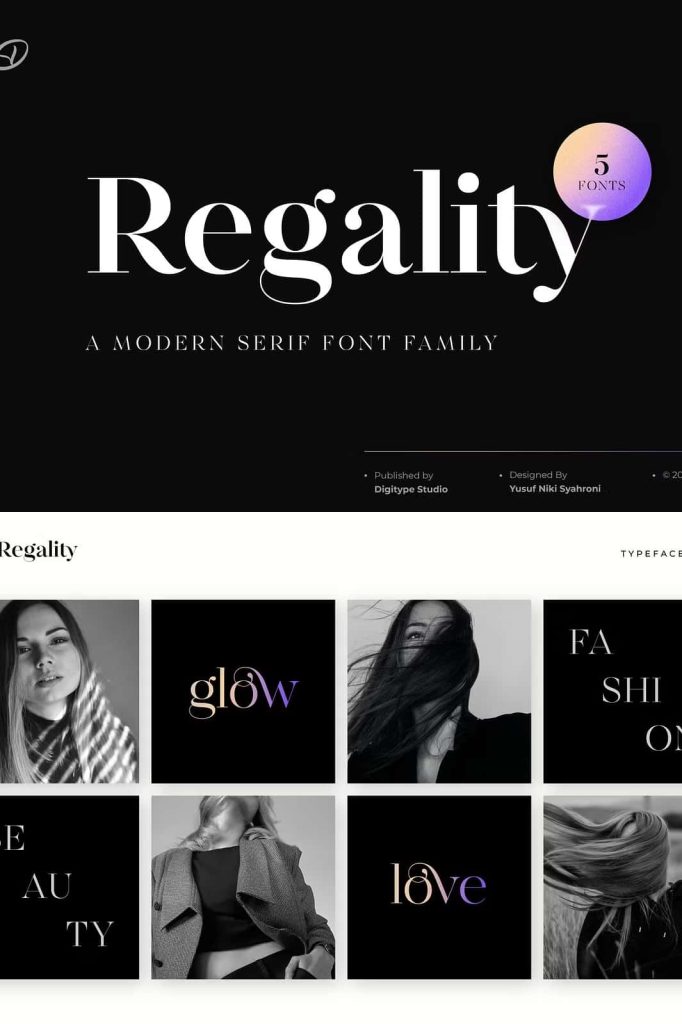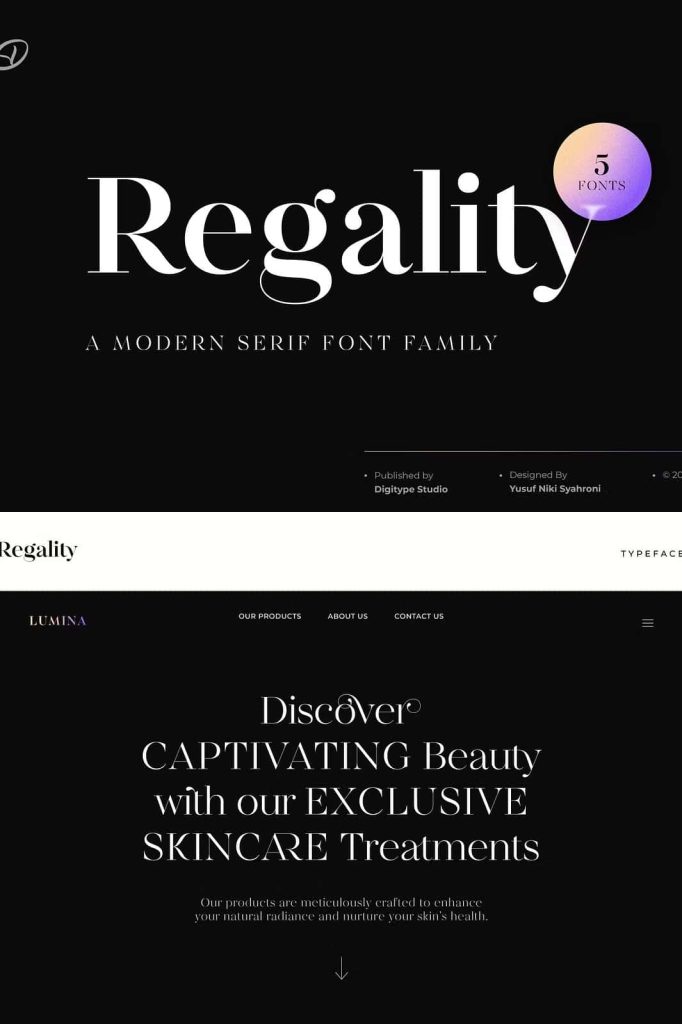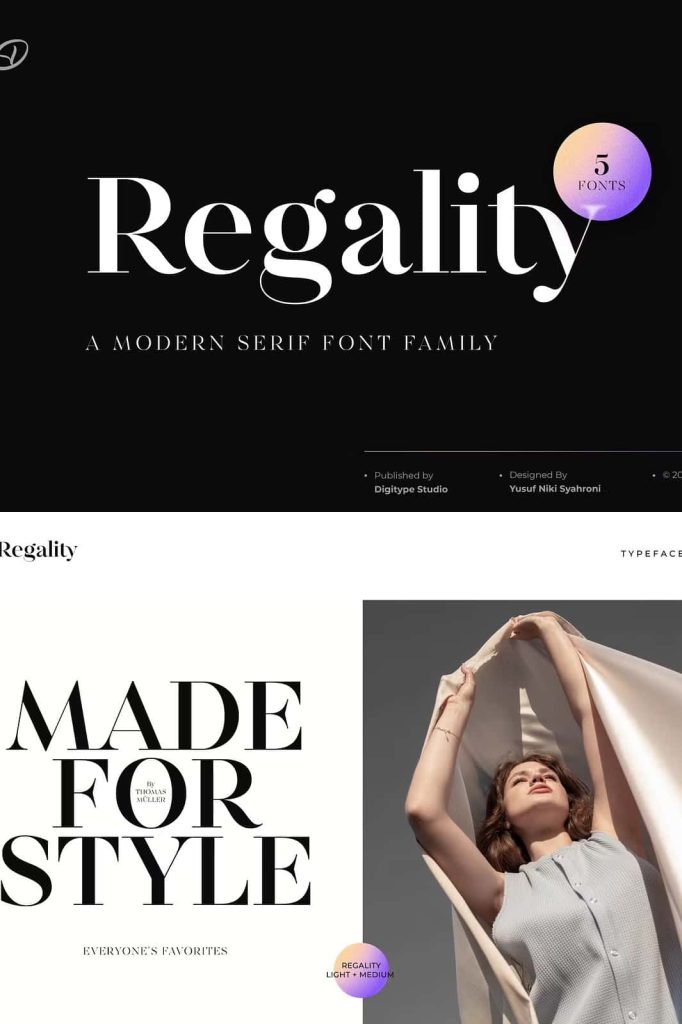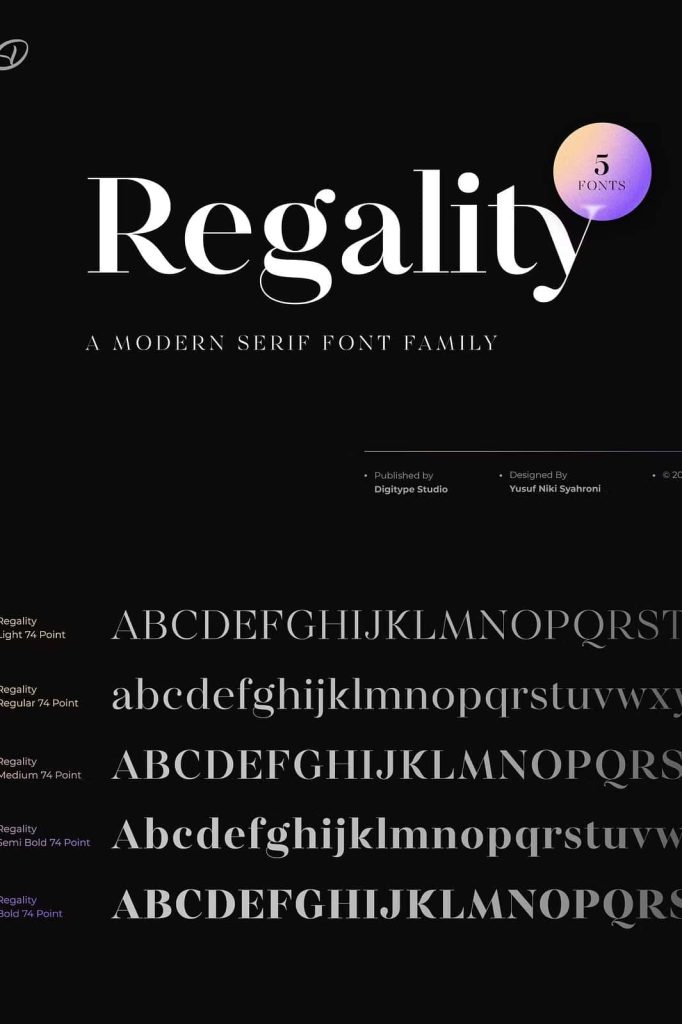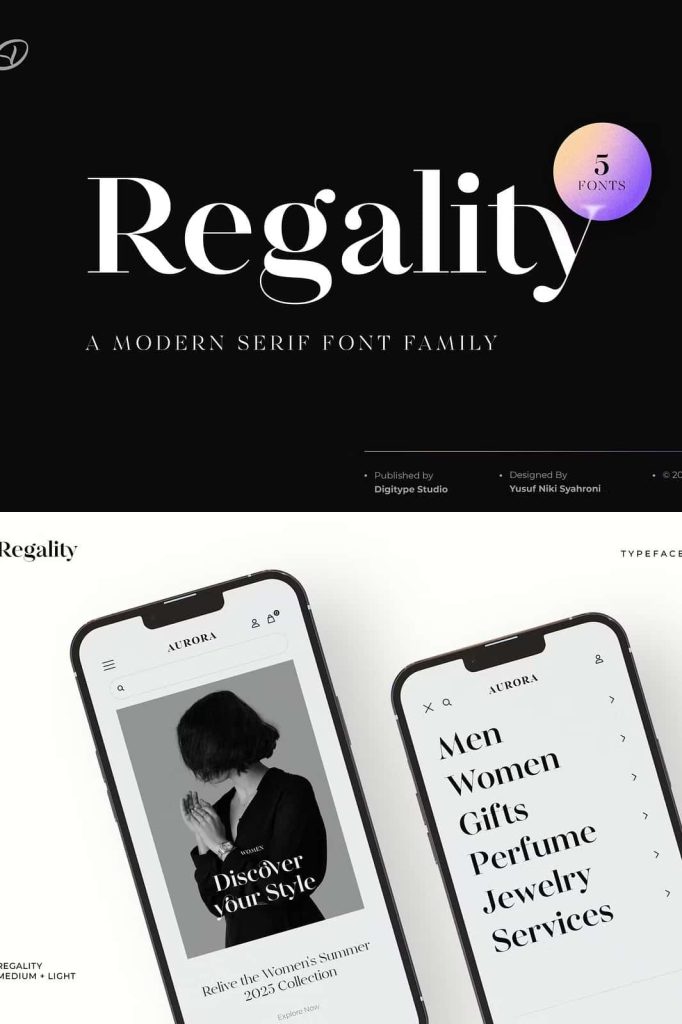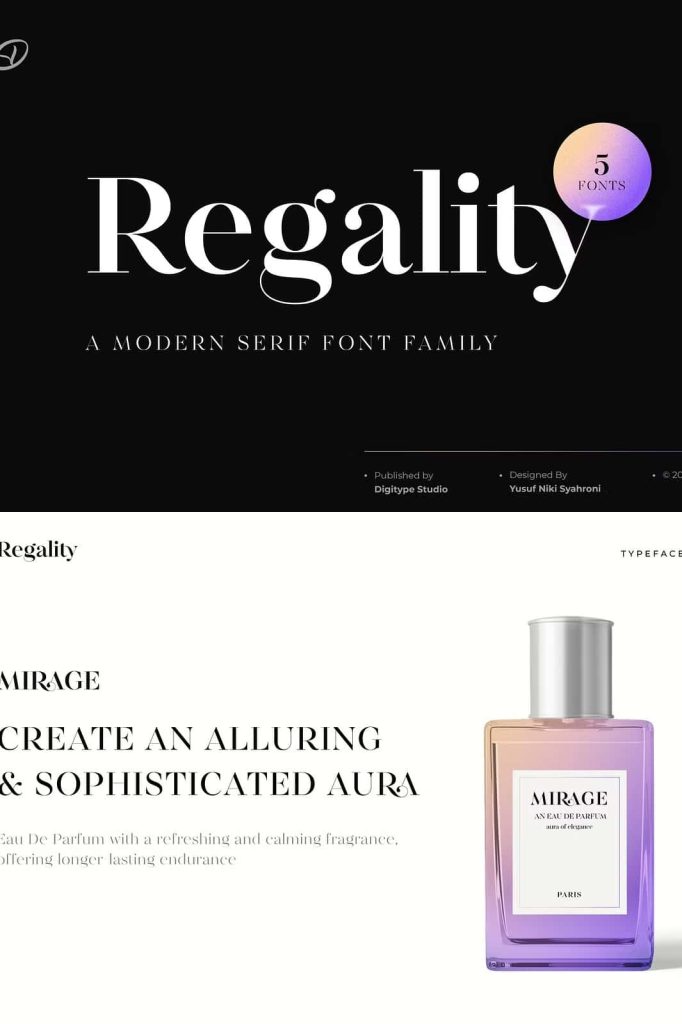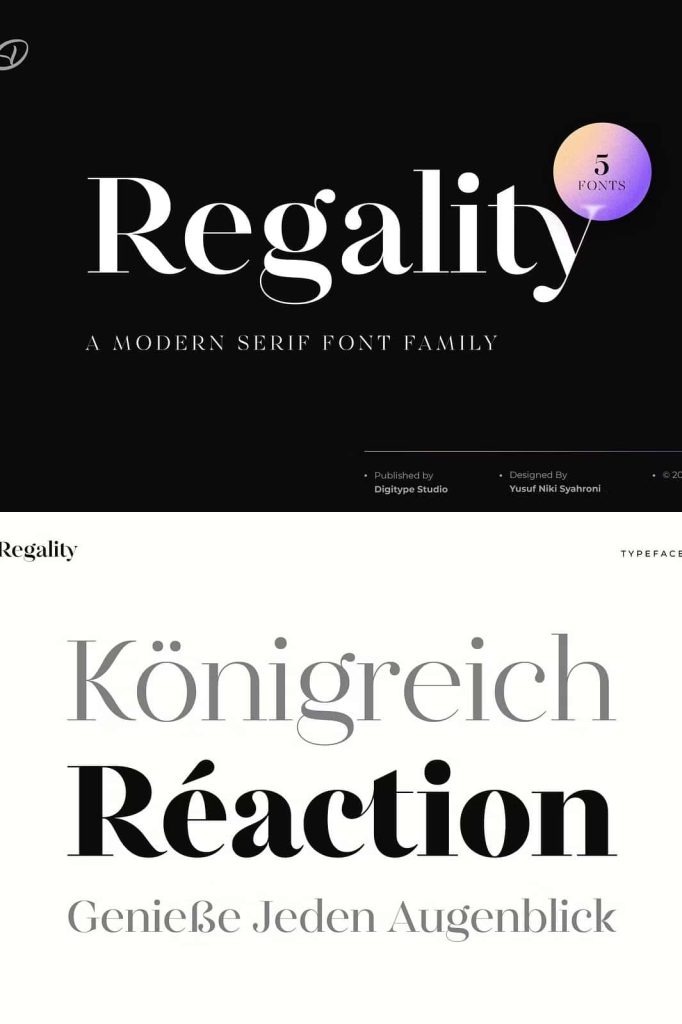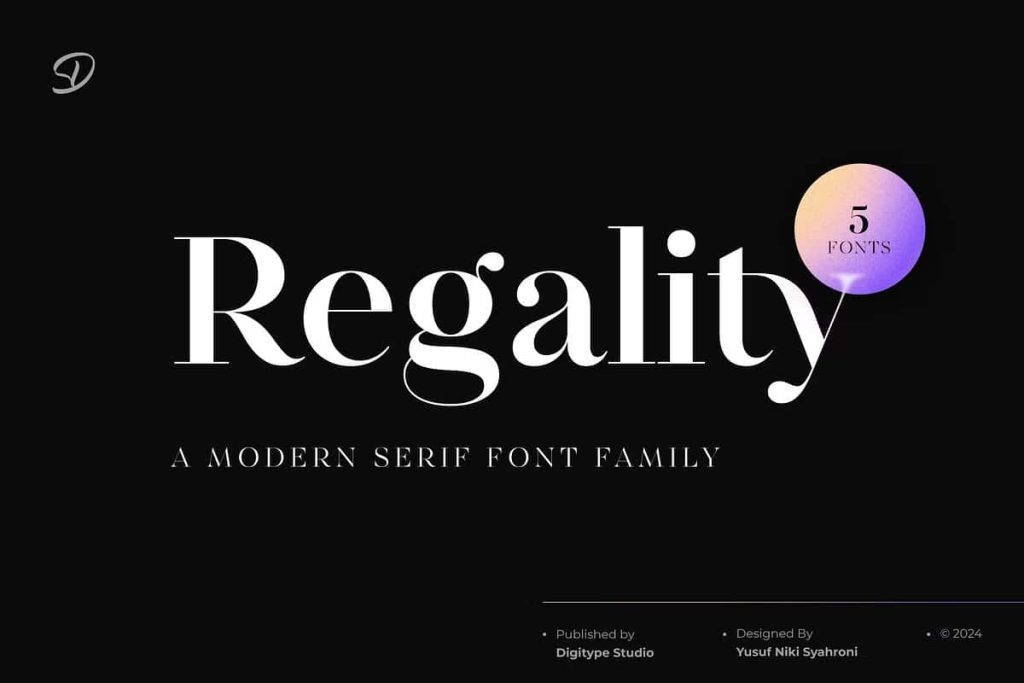
Regality – Classic and Elegant SerifleastedAugust 4, 2025Fonts Font Regality showcases classic and elegant characteristics inspired by 18th-century typography. Download